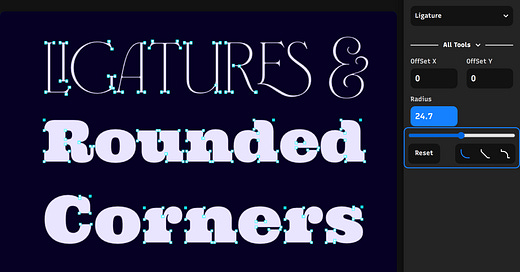
Weāre excited to introduce a new format for our Typogram product updates! Starting with this release, weāll be using video to walk you through the latest features and improvements, providing a more engaging and in-depth look at whatās new. Donāt worry if you prefer written content - weāve got you covered with a full transcript of the video below.
In this Typogram product update video, I dive into two exciting new features that will take your typography game to the next level. First, we explore the world of ligatures, a hidden gem in many fonts that can add a touch of elegance and sophistication to your designs. Learn how to easily find and apply ligatures to your text using Typogramās intuitive interface.
But thatās not all! We also introduce a highly anticipated feature: rounding corners. Say goodbye to the limitations of static, sharp corners and embrace the creative freedom of customizable rounded corners. Discover how Typogramās innovative tools allow you to selectively round individual corners or apply consistent rounding across multiple anchor points.
Quality of Life Updates
Letās start with some quality-of-life updates. Normally, you would change the panning using the centerX and centerY values, which change the center of the viewpoint. You can also zoom in by changing the zoom value, thatās what we are doing so far. However, thereās a better way in Typogram to zoom in, which is holding on the option (or alt) key and scrolling using your mouse wheel. You can also point where you want to zoom in, so it will zoom in where the mouse is.
Additionally, you can also pan by holding on the spacebar and holding on your mouse left key and dragging it around. Combining that with zooming in is a very fluid way to change your viewpoint. We also added Undo and Redo shortcuts. Before there were buttons to click to Undo and Redo, now you can hold down Ctrl (ā) + Z to Undo and Ctrl (ā) + Shift + Z to Redo.
Introducing: Ligature Feature
Now, onto a major update, which is a brand new feature that is exclusively available on Typogram; itās called ligature. Currently, weāre looking at two fonts, both of them have ligatures available to them. How do we find fonts like these?
First, select the text, and this text is gonna be determining what font will be filtered down the line. Then we turn on āHas Ligatureā, so this combined with the text content is gonna come up with a list of fonts that has ligature applicable to your selected text. Surely enough, each one we click here has some ligature to choose from.
You can also filter all tools to only show ligature tools by selecting it in the menu. This way, the ligature shows on top of the font menu, making it really easy to maneuver and configure. After you apply a ligature to two letters, you can also select that ligature glyph and break ligature, and that will separate them into individual glyphs again.
You can also select two or more consecutive letters and turn on āHas Substitutionsā. This is an alternative way to find ligature that is applicable to selected letters. So here, every single font will have ligature applicable to the letters āaā ātā.
Introducing: Rounding Corners
Last but not the least, I finally added a feature that I have been dreaming about since the inception of Typogram, which is rounding corners. Now at Typogram, we have added anchors where you can select each of the anchor points and round them. Change the select tool to āSelect Cornerā, which is newly added, and now you see a bunch of corners to be selected.
Once you select one of them, you see the panel that has a radius property for them, where you can manipulate how rounded that corner should be. We can also multi-select multiple corners and then round them together. The easiest way to multi-select corners is to use drag a box and cover the corners that you want to select. If you keep using drag to select, the previous selection wonāt be cleared, making it really easy to select all the corners you want to round to the same level of roundness and apply the value together.Ā
Here I try to round all the slab serifs to create a custom typeface look. Beyond just rounding corners, thereās actually three different options of rounding: round, square, and concave. You can choose between them and apply different radius to achieve a different look. You can mix and match different corner types with different radius here. Iām adding a square corner on both sides of the vertical stroke of the letter R.